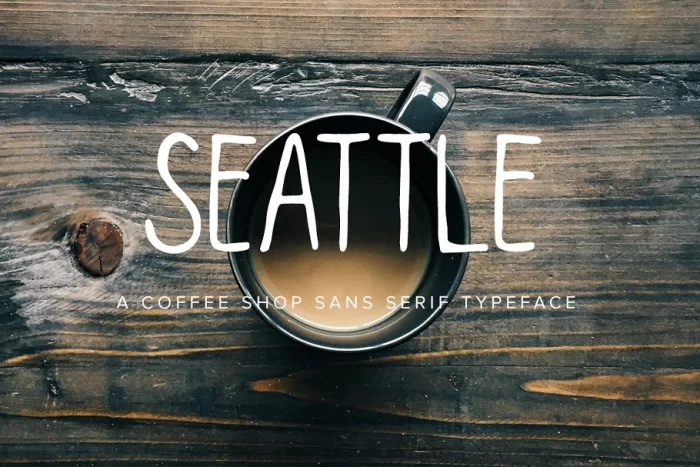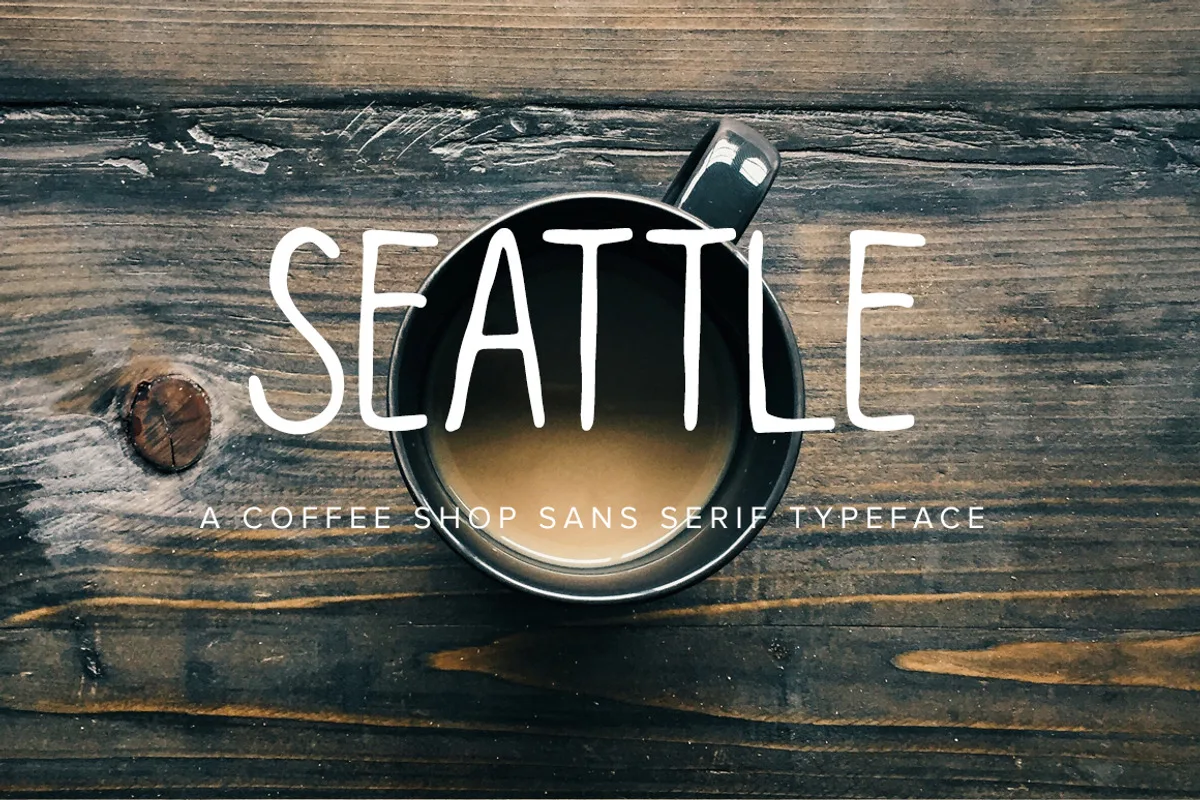
Seattle is a hand-painted cafe-inspired sans serif font that will make you want to settle down with a hot cup of coffee and a great book. This all-caps font is a fantastic option for signage, menus, or even letters and cards!